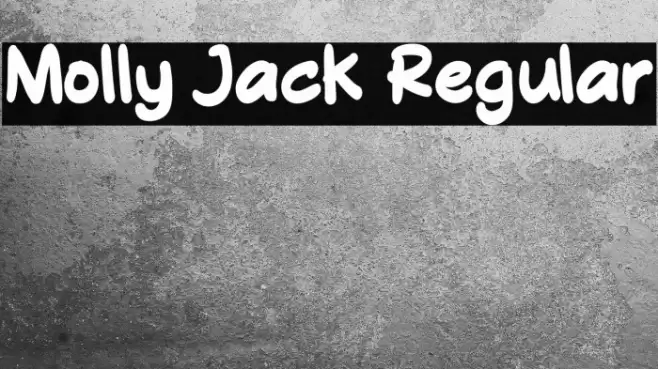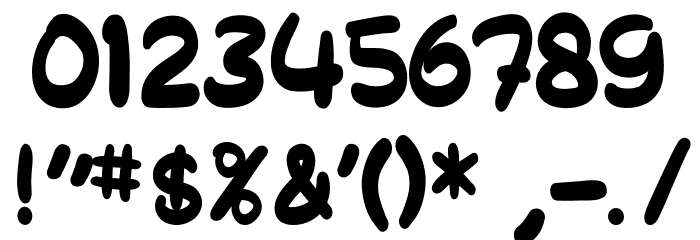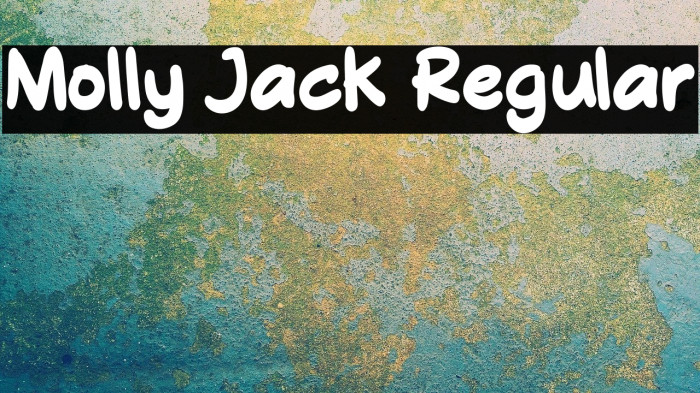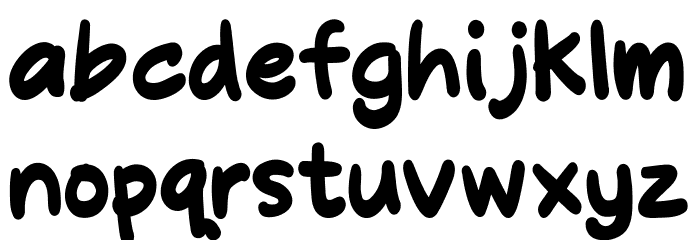
Molly Jack Regular Font
Molly Jack Regular Description
This font features a playful and bold handwritten style, characterized by its rounded and slightly irregular letterforms. The uppercase and lowercase letters maintain a consistent thickness, giving the font a cohesive look. The numbers and special characters follow the same design principles, ensuring uniformity across all glyphs. Its casual and friendly appearance makes it suitable for projects that require a personal touch. The font's design is approachable and easy to read, making it ideal for informal and creative applications.
A playful, bold handwritten font with rounded, consistent letterforms from Comic fonts.
- Font: Molly Jack Regular
by Ketapel - Weight: Bold
- Proposed Projects: Ideal for children's books, greeting cards, playful branding, and social media graphics.
- Overall Style: Playful
- Use Case: Headlines, Logos, Informal Text